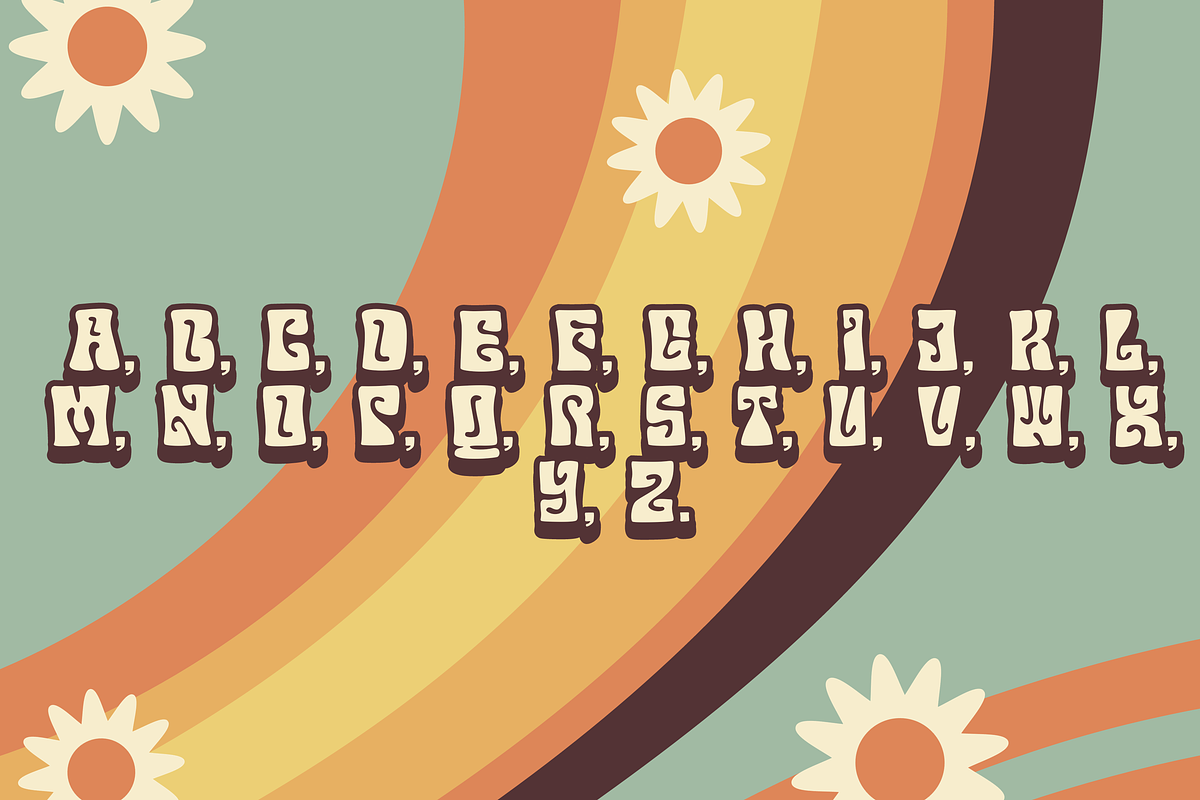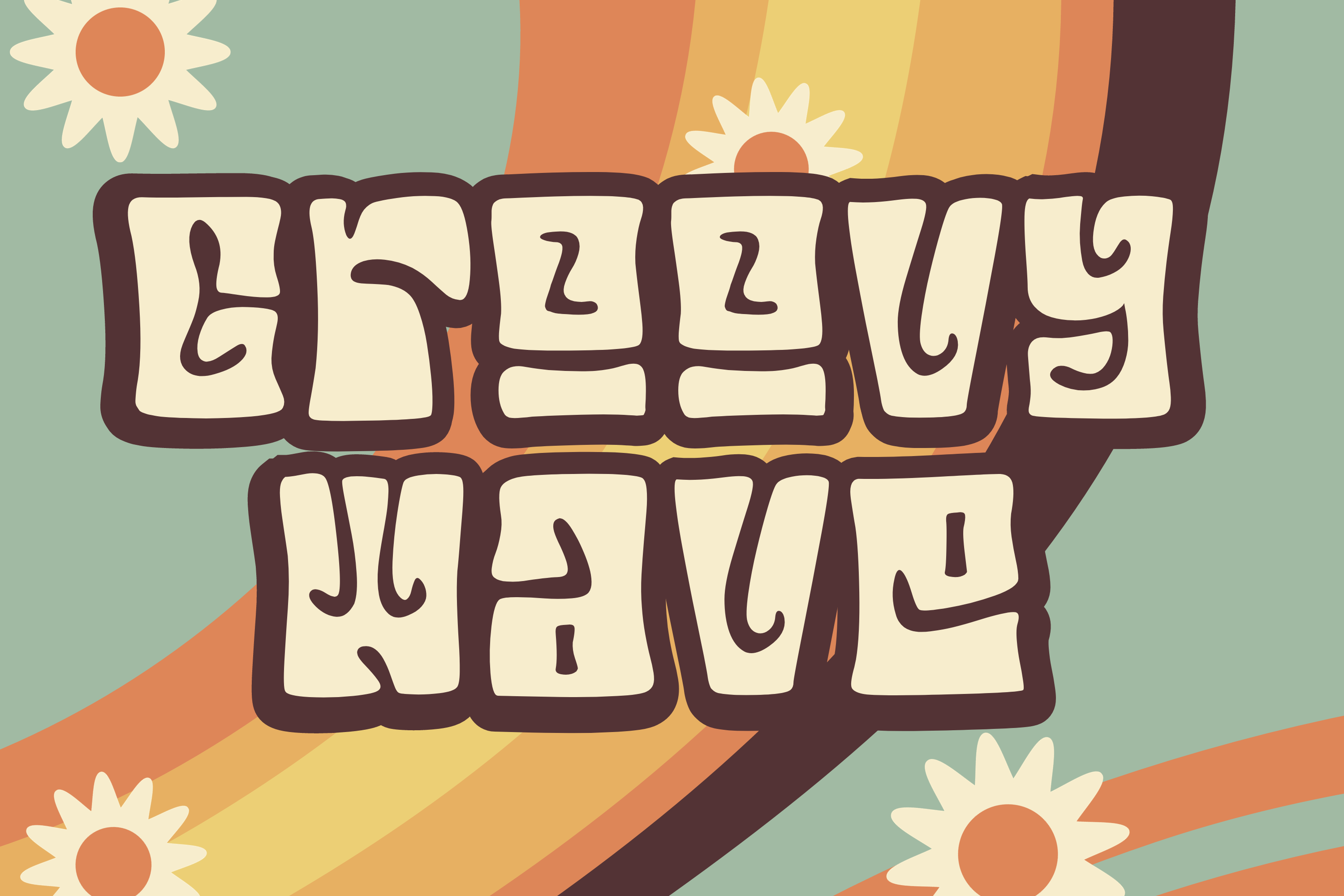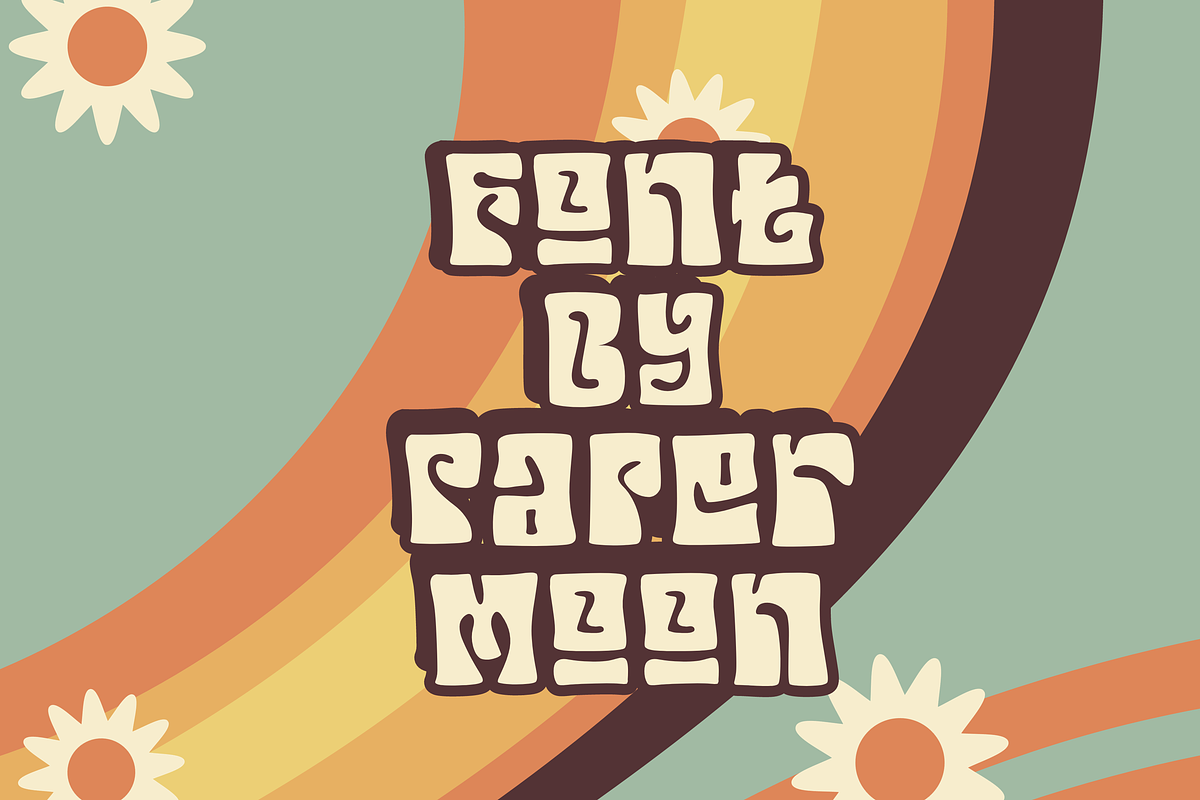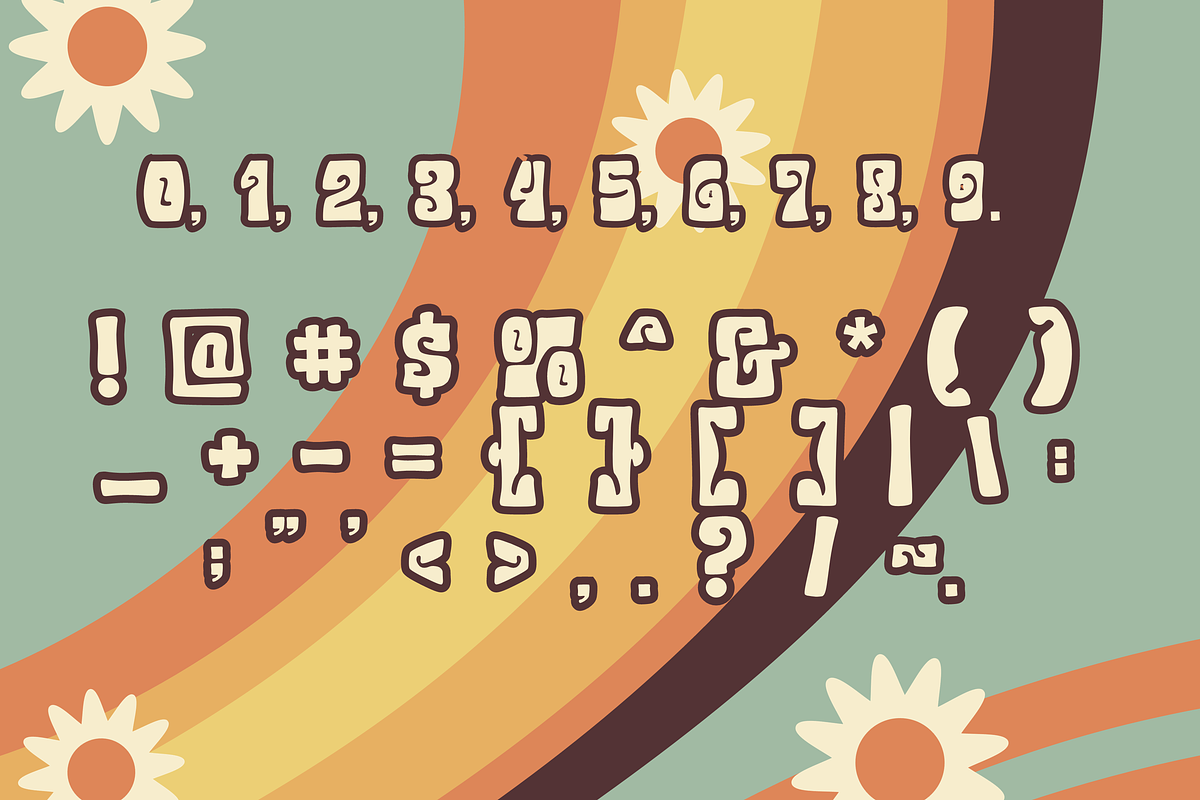
GroovyWave - Retro Font
Get ready to groove with the brand new GroovyWave Font! We're thrilled to present the GroovyWave Font 70s Font, a font that's going to bring a whole lot of funk and style to your design projects.
Features that will make your design pop:
Let your creativity flow with the GroovyWave Font, and give your designs that unmistakable '70s flair.